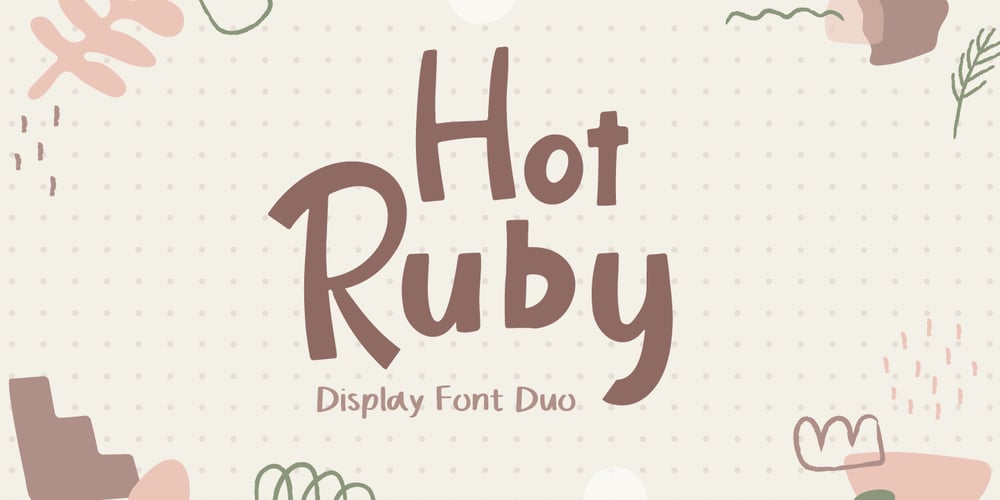
Hot Ruby Font Family was designed by Fadli Ramadhan Iskandar and published by Attype Studio. Hot Ruby contains 2 styles and family package options. Hot Ruby is a Hand written font duo. Regular & Outline Version.Perfect for any business logo, brand and use it to create spectacular designs!Hot Ruby is perfect for branding, logo, invitation, stationery, social media post, product packaging, merchandise, blog design, game titles, cute style design, Book/Cover Title and more.What’s Included :- Ending Swash- Ligatures- Multilingual Support Hope you enjoy with our font!Attype Studio